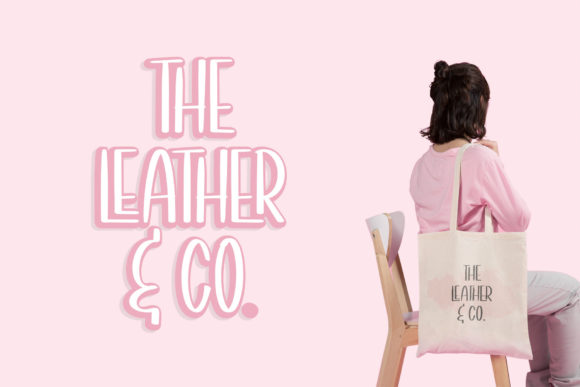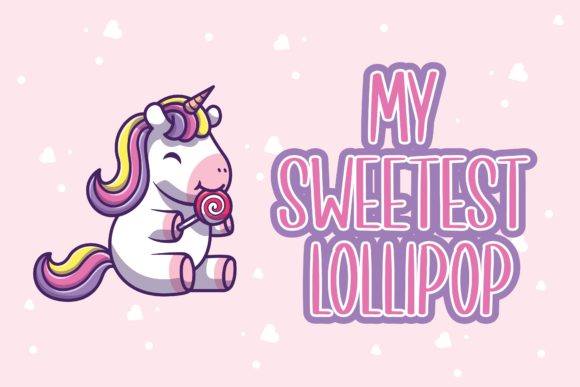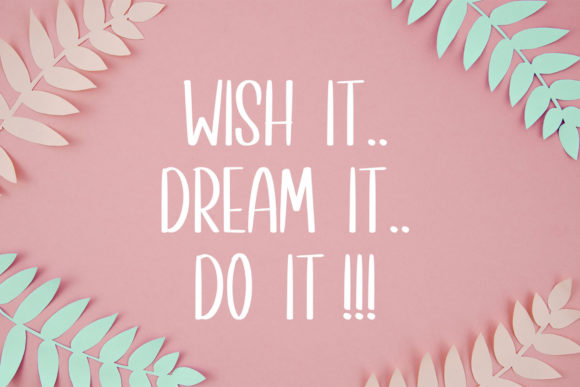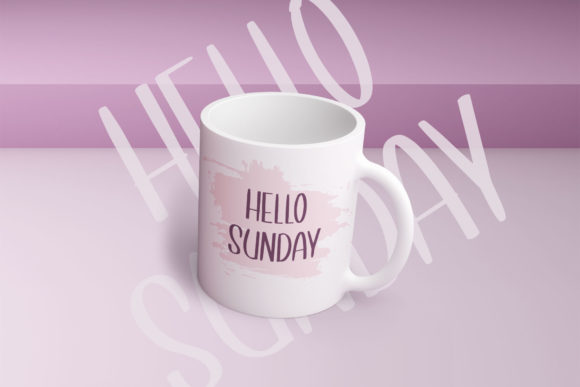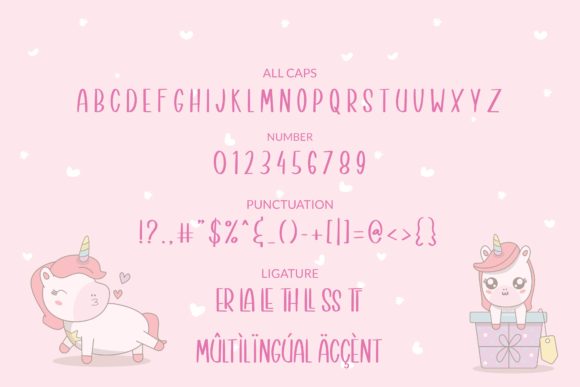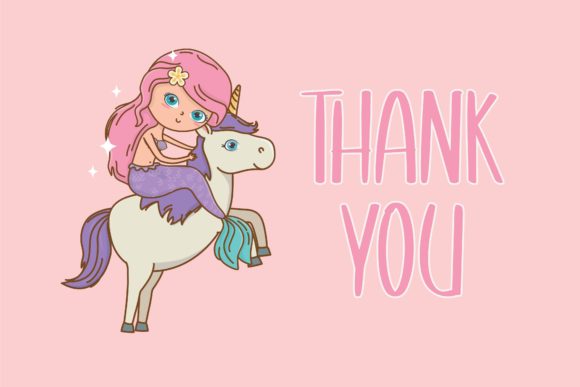
The Magical World of Better Unicorn Font
Have you ever been in the middle of a design project, and suddenly, you’re stuck on finding the perfect font? I recall a recent experience where I was working on a whimsical greeting card design, and my client specifically asked for a font that was “sweet, fun, and cute.” After scouring through numerous font libraries, I stumbled upon the Better Unicorn Font, and it instantly became my go-to choice.
A First Impression: Sweet, Fun, and Cute
Better Unicorn is a display font that embodies the essence of sweetness, fun, and cuteness. Its clean and soft texture makes it an excellent fit for creating beautiful stationery art, eye-catching social media posts, and adorable greeting cards. Whether you’re a designer, crafter, or creative hobbyist, this font is sure to bring a touch of magic to your projects.
- ✨ The font’s playful and whimsical feel makes it perfect for designs that require a touch of fantasy.
- ✅ The clean and soft texture ensures that the font remains readable, even at larger sizes.
- 💕 The font’s versatility allows it to be used for a wide range of design projects, from stationery to social media graphics.
While Better Unicorn Font is an excellent choice for many design projects, there are a few quirks to be aware of:
- ⚠️ The font may not be suitable for body text or lengthy paragraphs, as its display nature can make it difficult to read in smaller sizes.
- 🤔 Some users may find that the font’s sweetness and playfulness may not be suitable for more formal or professional designs.
- Experiment with OpenType features, such as glyphs and stylistic alternates, to add more creativity to your design.
The Designer Inspiration Behind Better Unicorn Font
The story behind Better Unicorn Font is one of creativity and passion. The font’s designer was inspired by the magical world of unicorns and the joy of creating something beautiful and fun. With a background in typography and a love for whimsical designs, the designer crafted Better Unicorn Font to bring a touch of sweetness and playfulness to the world of typography.
Q: Is Better Unicorn Font suitable for body text?
A: While Better Unicorn Font is a beautiful display font, it may not be suitable for body text or lengthy paragraphs. Its display nature can make it difficult to read in smaller sizes.